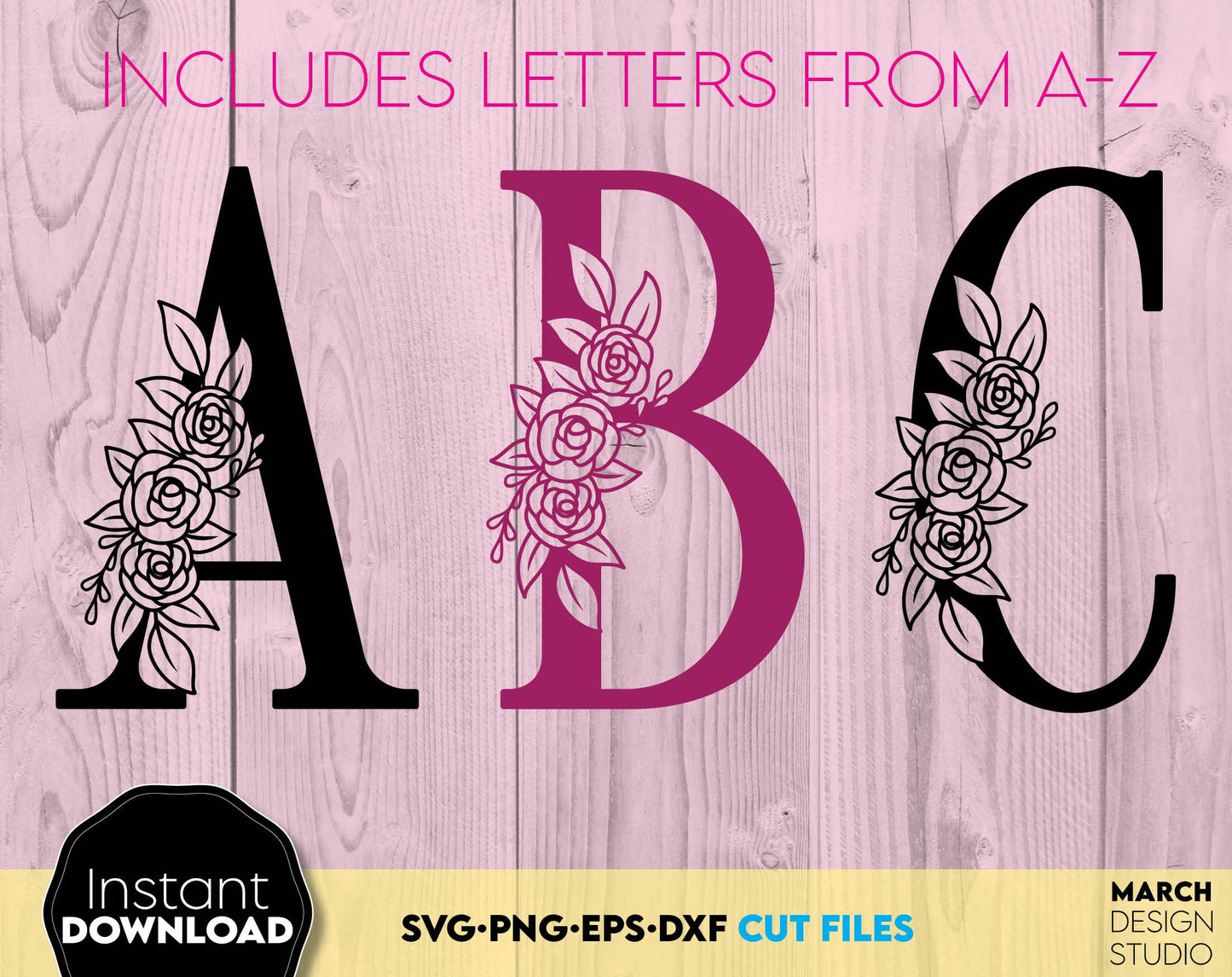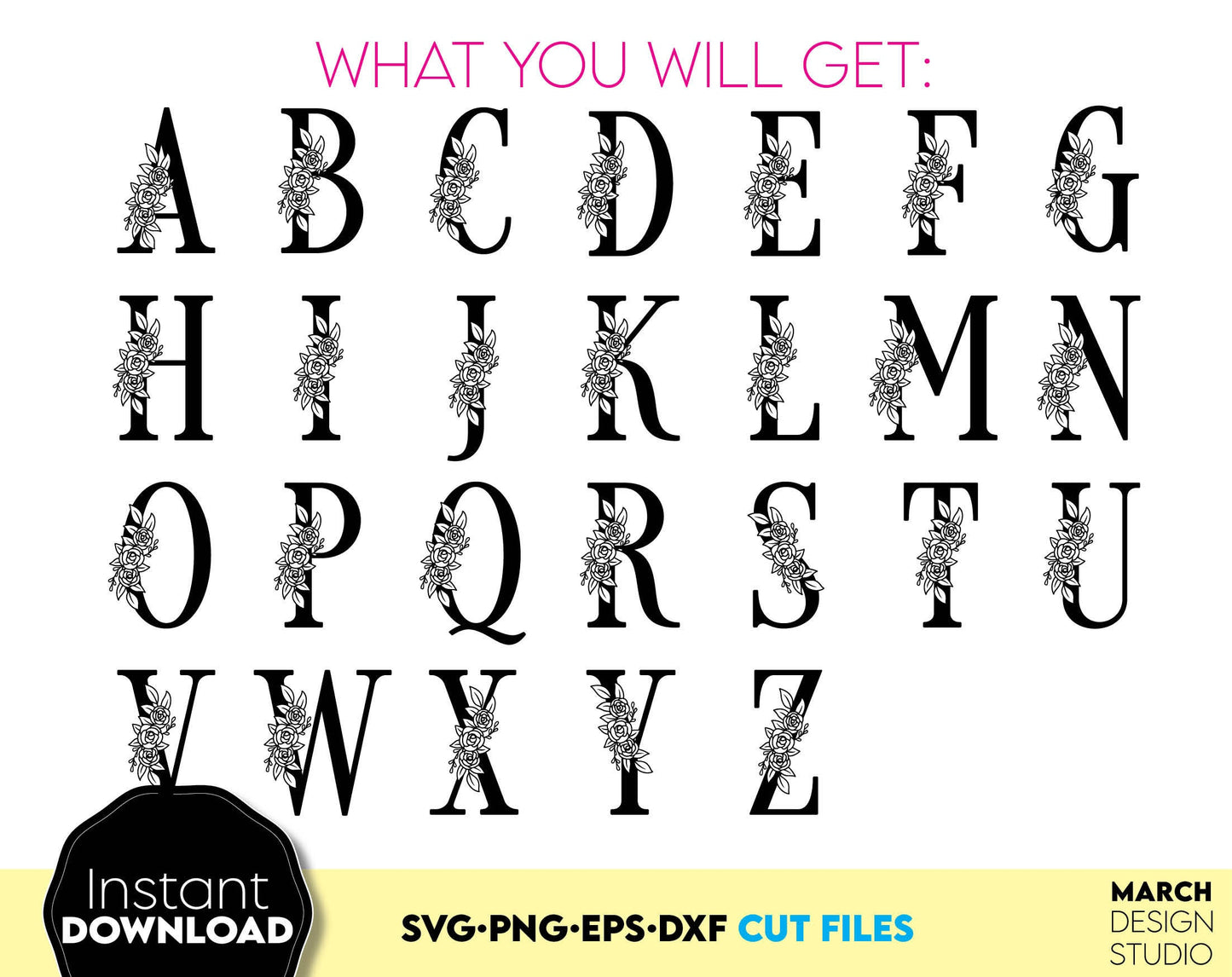
Floral Monogram font SVG design you can use to surprise your loved ones. Just click ADD TO CARD. You can use Floral monogram font to make gifts for various important events, like - Christmas, Birthdays, Weddings, etc. Compatible with Cricut, Silhouette or other machines. Buy now for a good price and enjoy!